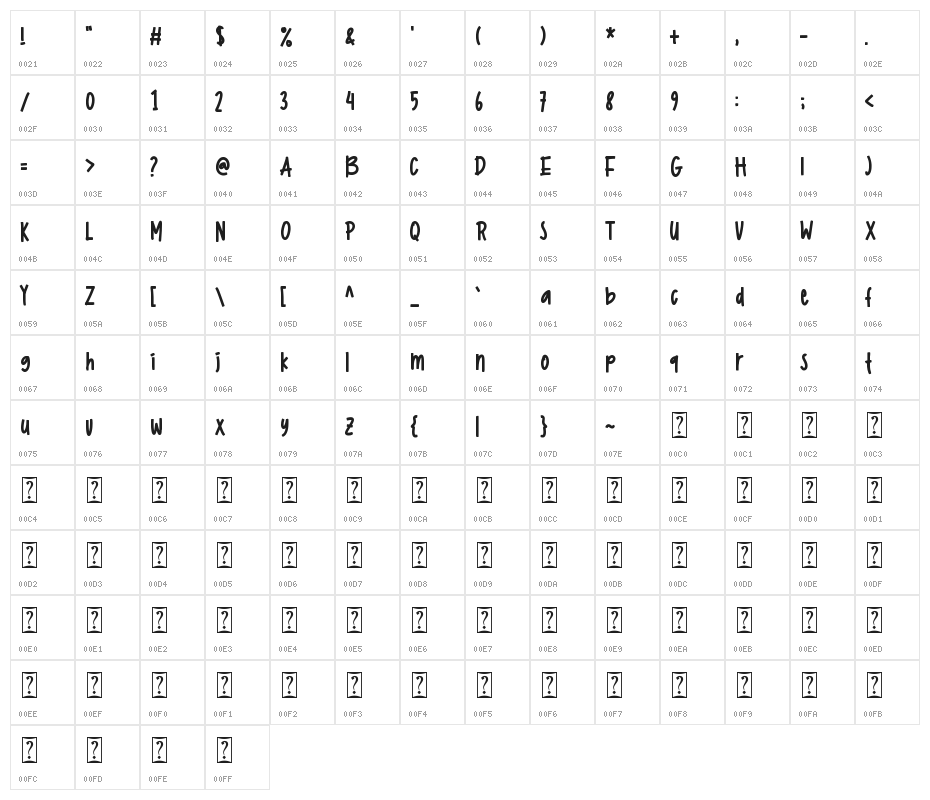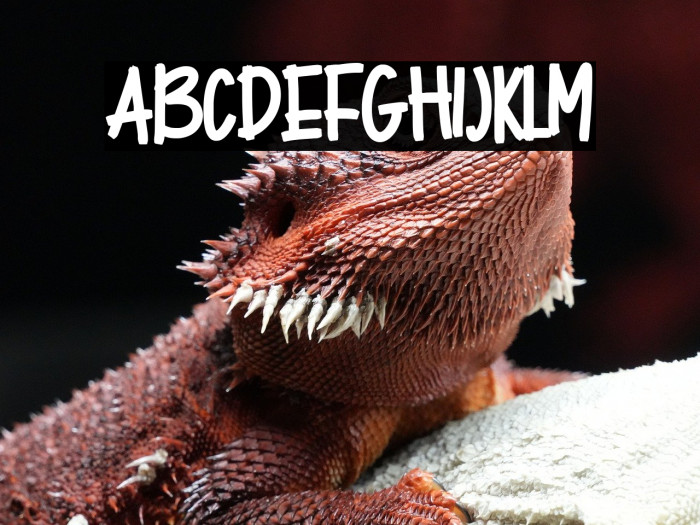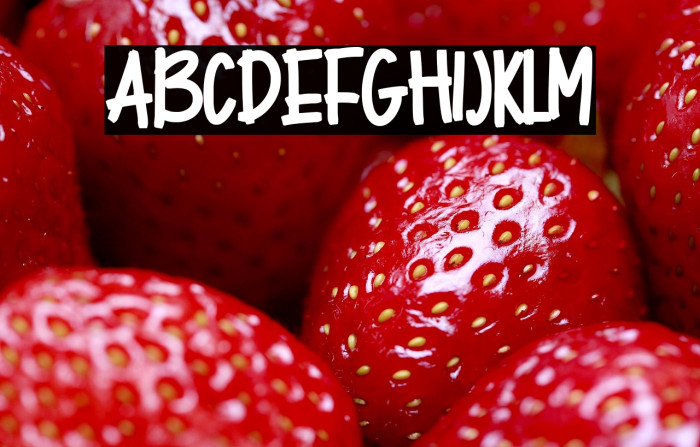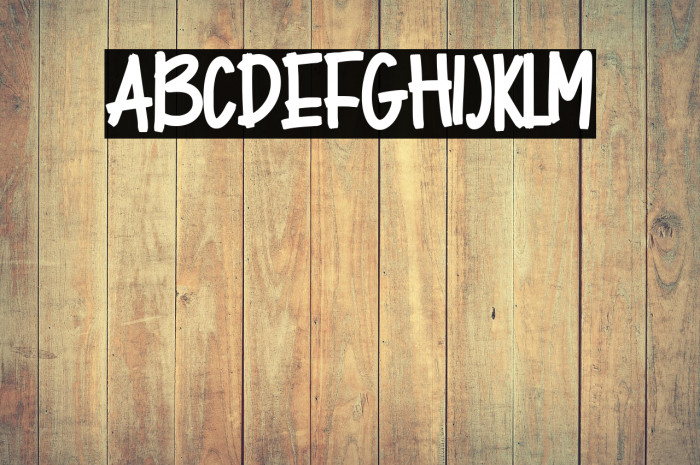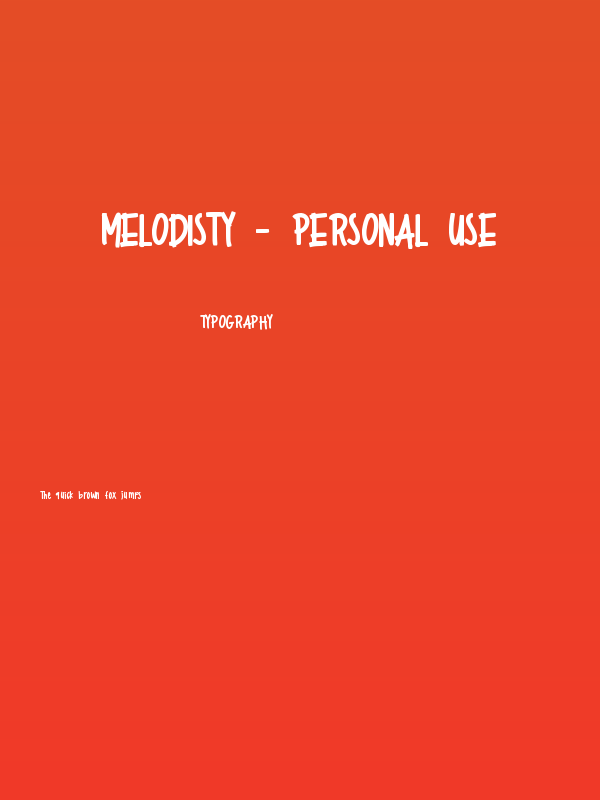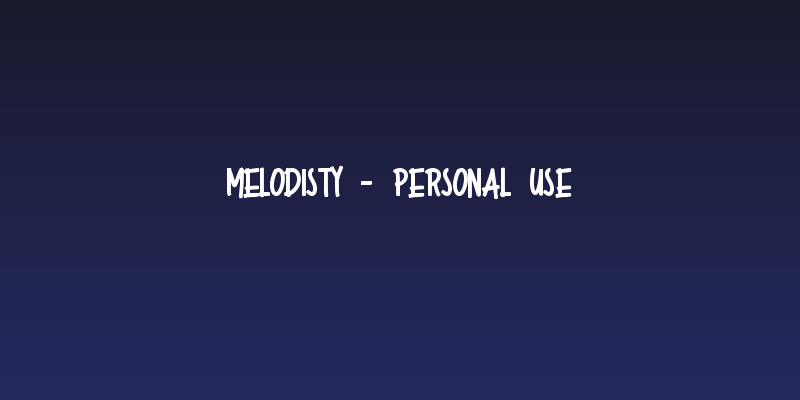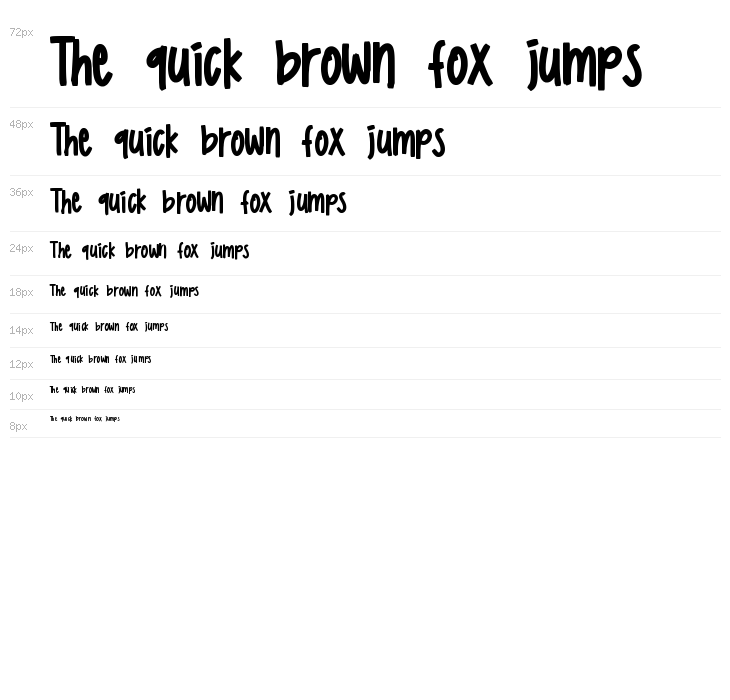
Melodisty - Personal Use Font
Melodisty - Personal Use Description
This font features a playful and bold handwritten style, characterized by its thick strokes and slightly irregular letterforms. The uppercase and lowercase letters maintain a consistent weight, giving the font a cohesive appearance. The characters are slightly condensed, which adds to the energetic and informal vibe. The numbers and special characters follow the same playful aesthetic, making the font versatile for various creative projects. Its boldness ensures readability while the unique style adds a touch of personality to any design.
| Proposed Projects | Ideal for children's book covers, playful branding, greeting cards, and social media graphics. |